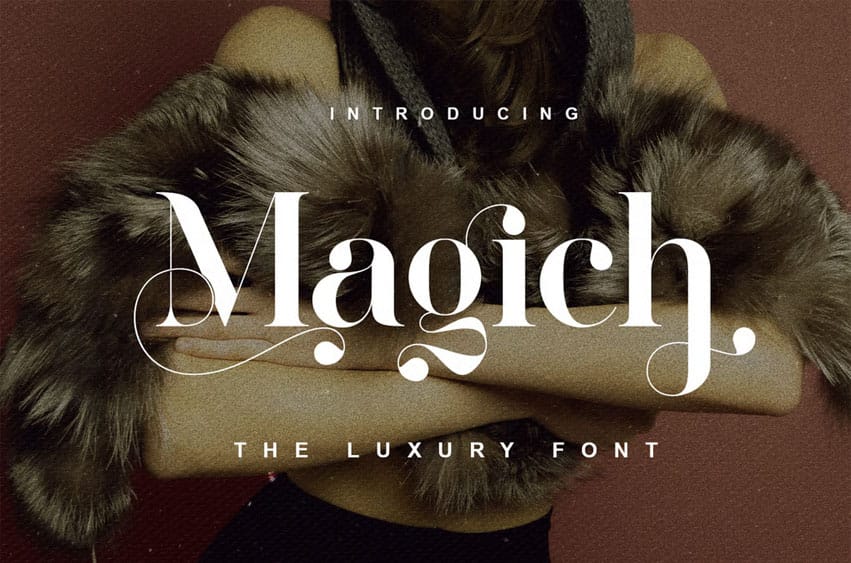
Magich Serif Font is an elegant ligature serif modern font that evokes the beauty of fresh blooms and timeless elegance. With its bold yet refined ligatures, Magich stands out as a sophisticated and feminine typeface. Perfect for upscale designs, whether for florals, fashion, or high-end branding, Magich pairs the charm of classic serif styles with a modern twist. Every letter feels intentional, with a soft and graceful presence that elevates any project it touches.
Bring a touch of refinement and natural grace to your work with Magich. Let this font breathe elegance into your designs, and watch them flourish with style and character.